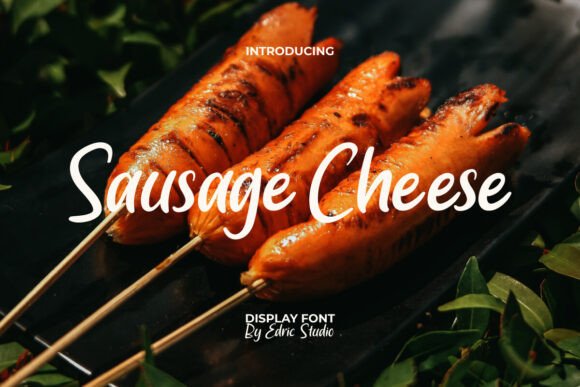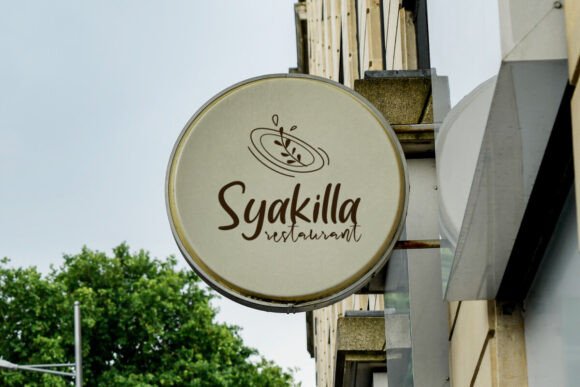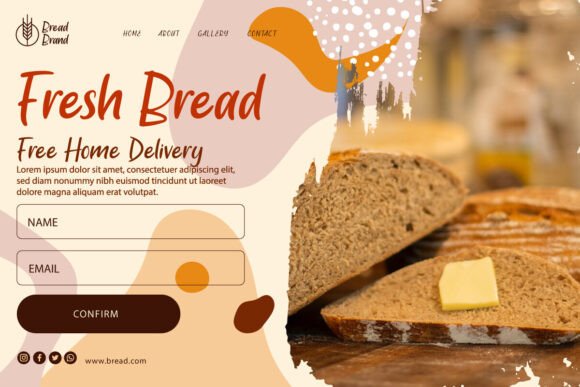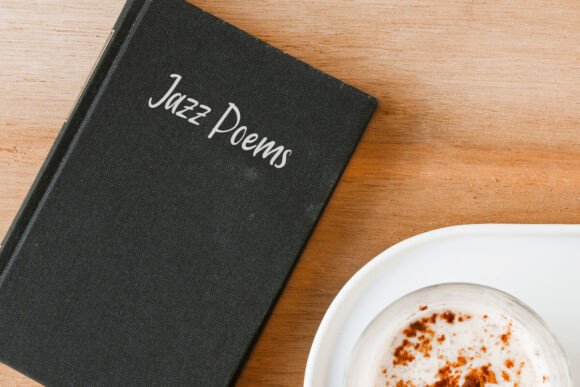
Sausage Cheese Font
About the Sausage Cheese Font
The Sausage Cheese Font offers a perfect balance of form and function for your design needs. Sausage Cheese Font is a modern foodies display font created from a brush script font to give an attractive handwritten feel. It will provide a fun vibe to whatever your design is, such as apps, blogs, brochure, cover, flyer, header, logos, packaging design, poster, price label, quotes, screen print, signage, stationery, sticker, title, website, and more.